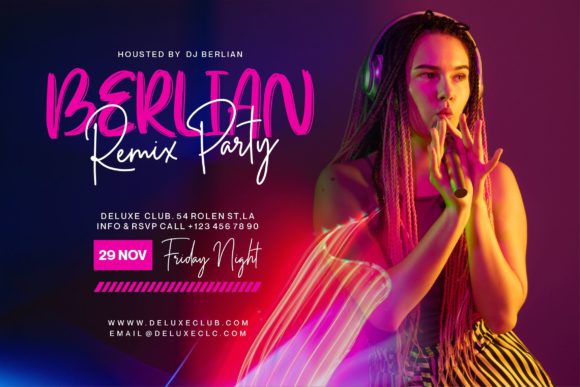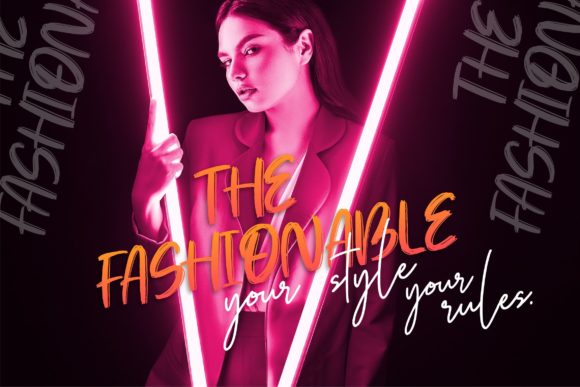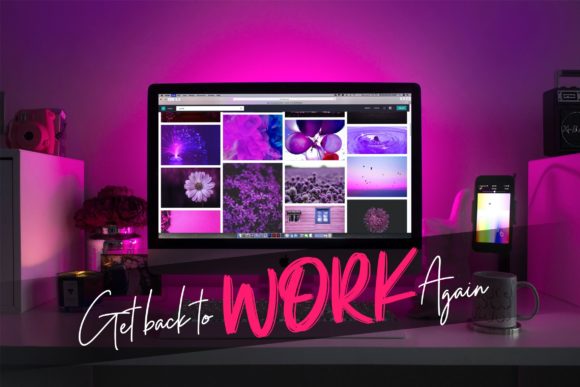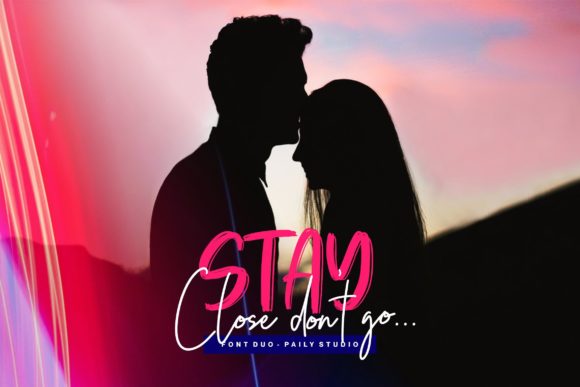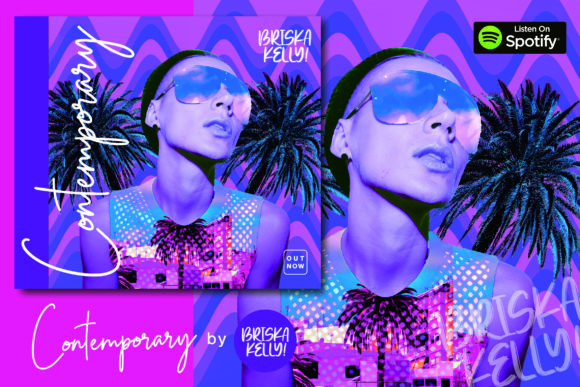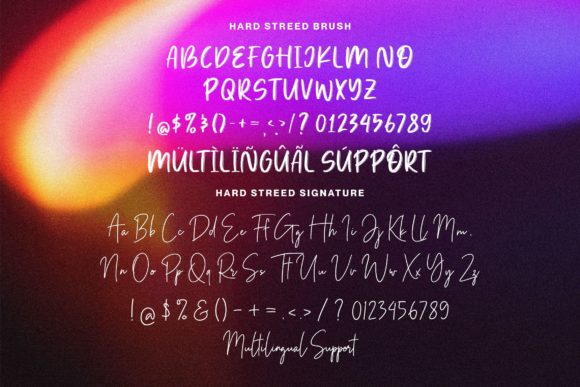
Introduction to Hard Streed Font
Remember that moment when you’re working on a creative project and you can’t find the perfect font to bring it to life? You’ve scoured the web for hours, tried out dozens of options, and still, nothing seems quite right. That’s where the magical Hard Streed Font comes in – a high-quality script and display duo font that will elevate your designs and leave a lasting impression.
Whether you’re a seasoned designer or a DIY enthusiast, the Hard Streed Font is an invaluable design resource that will take your creative ideas to the next level. With its elegant touch and versatile style, this font is perfect for Instagram posts, calligraphy scripts, and any other project that requires a touch of sophistication.
Key Features of Hard Streed Font
- Unique, bold, and edgy design style ideal for creative projects
- Transparent background allows for easy layering and customization
- High-quality font with precise details and crisp edges
- Includes multiple font weights and styles for versatility in design
- Designed to be scalable, suitable for use in various resolutions and sizes
- Excellent design resource for graphic designers, artists, and digital creatives
Honest Review: Hard Streed Font
One of the standout features of Hard Streed Font is its versatility. It works well for both modern and classic designs, making it a great design resource to have on hand. The font also features a transparent background, which can be really useful when you need to make design elements pop.
Here are some of the things that work well with Hard Streed Font:
- High-quality design that’s perfect for modern and classic projects
- Transparent background for added design flexibility
- The font may not be suitable for extremely small text sizes
- The font doesn’t include a wide range of ligatures
Overall, I’m really impressed with Hard Streed Font. It’s a high-quality design resource that’s perfect for designers looking to add some versatility to their toolkit. With a few minor limitations in mind, I’d definitely recommend giving it a try.
To get the most out of the Hard Streed Font, experiment with different font sizes, colors, and styles. You can also use it in combination with other design elements, such as images and graphics, to create a unique and eye-catching design.
The Hard Streed Font is commonly used in creative projects such as logos, business cards, and social media graphics. It’s also a great choice for headings and titles in blog posts and articles. With its unique style and high quality, the Hard Streed Font is a valuable design resource for any creative project.